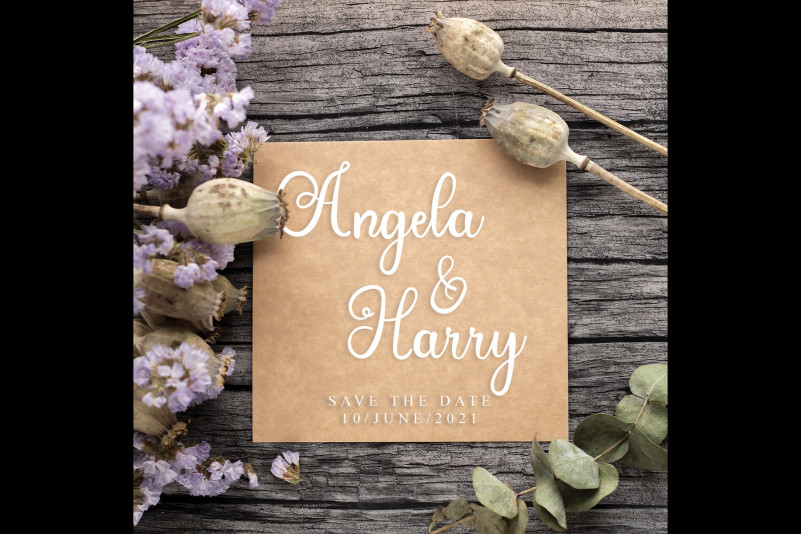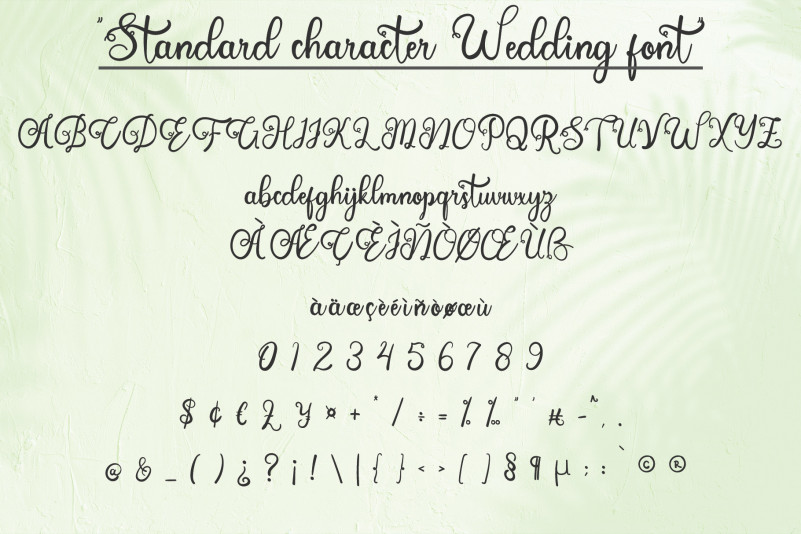
Wedding Calligraphy Font
This is an exquisite, lovely and flowing handwritten font. It maintains its classy calligraphic influences while feeling contemporary and fresh. Fall in love with this font and bring your projects to the highest levels!